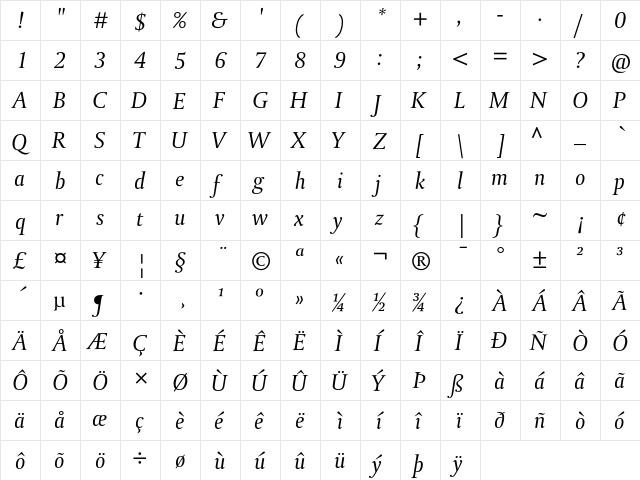
DTLParadoxT Italic
Design Context for DTLParadoxT Typeface
DTLParadoxT takes a measured approach to typography — its balanced proportions and neutral character make it a reliable workhorse for both digital and print work. The slanted form adds forward momentum and visual energy.
Pro Tip: Use DTLParadoxT for emphasis, pull quotes, and subheadings where its slanted energy can add rhythm to the layout.